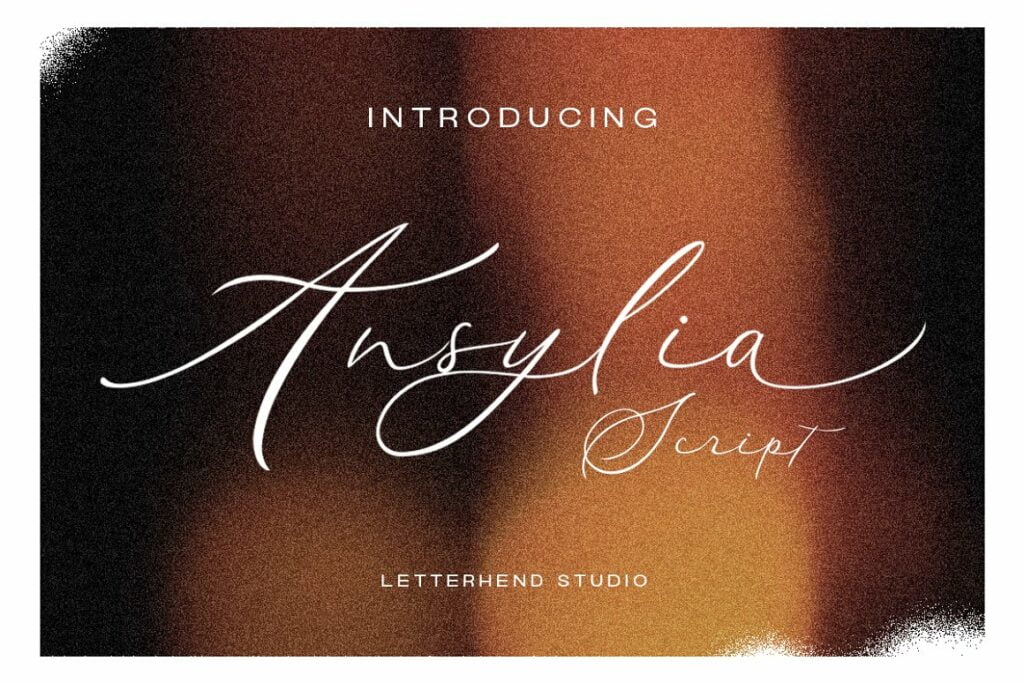
Ansylia Font
Ansylia Script an authentic calligraphy with natural signature style. This type of font perfectly made to be applied especially in logo, and the other various formal forms such as invitations, labels, logos, magazines, books, greeting / wedding cards, packaging, fashion, make up, stationery, novels, labels or any type of advertising purpose.
Ansylia Calligraphy Script Font